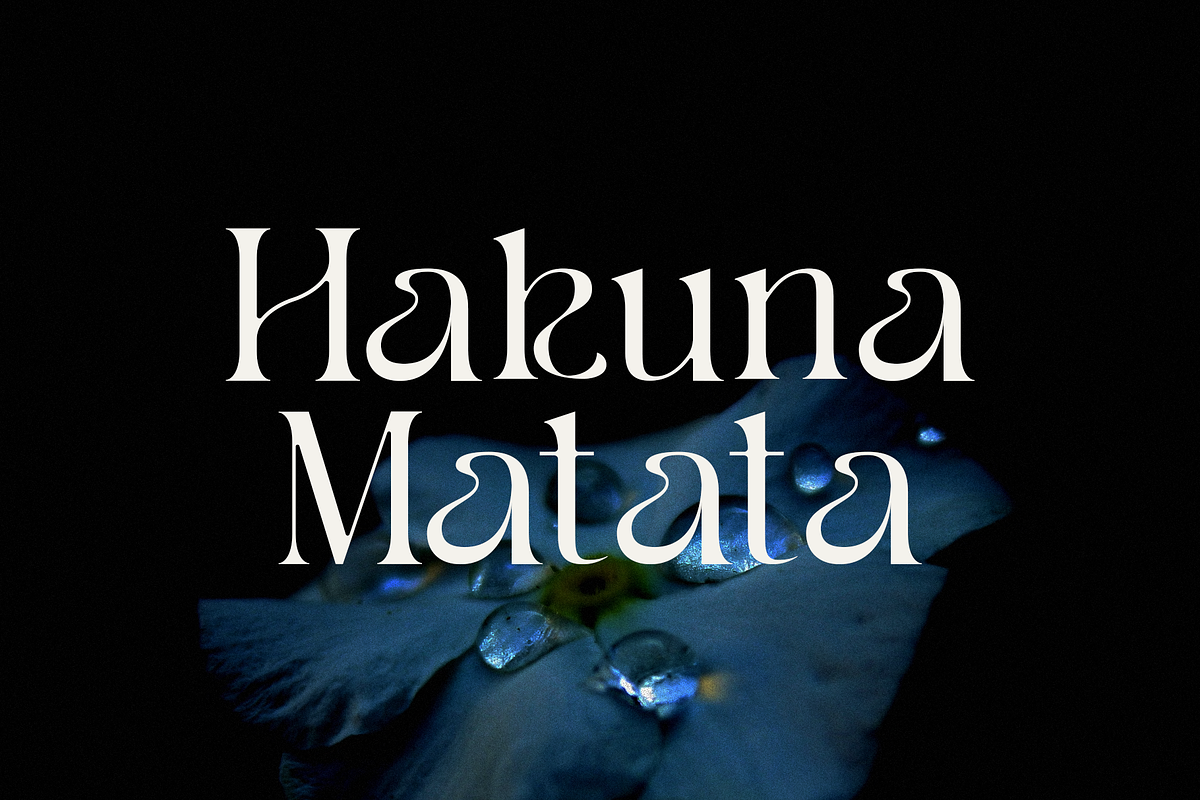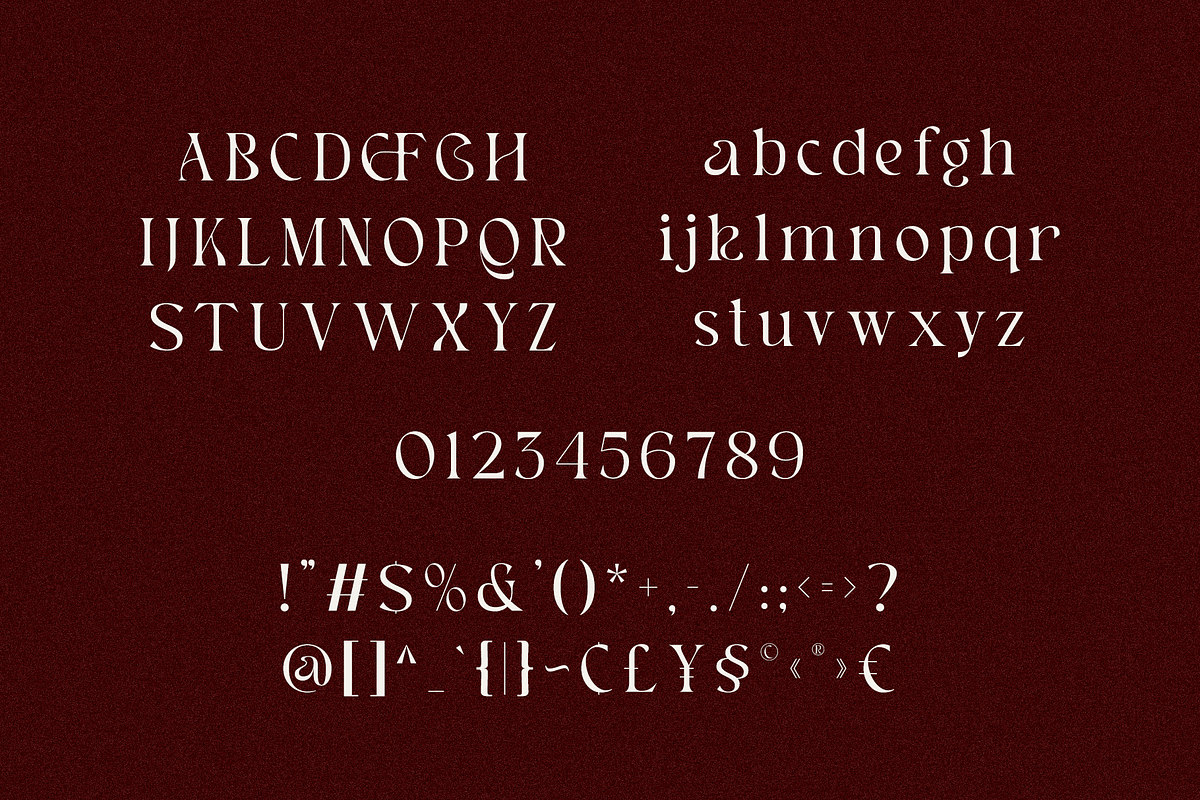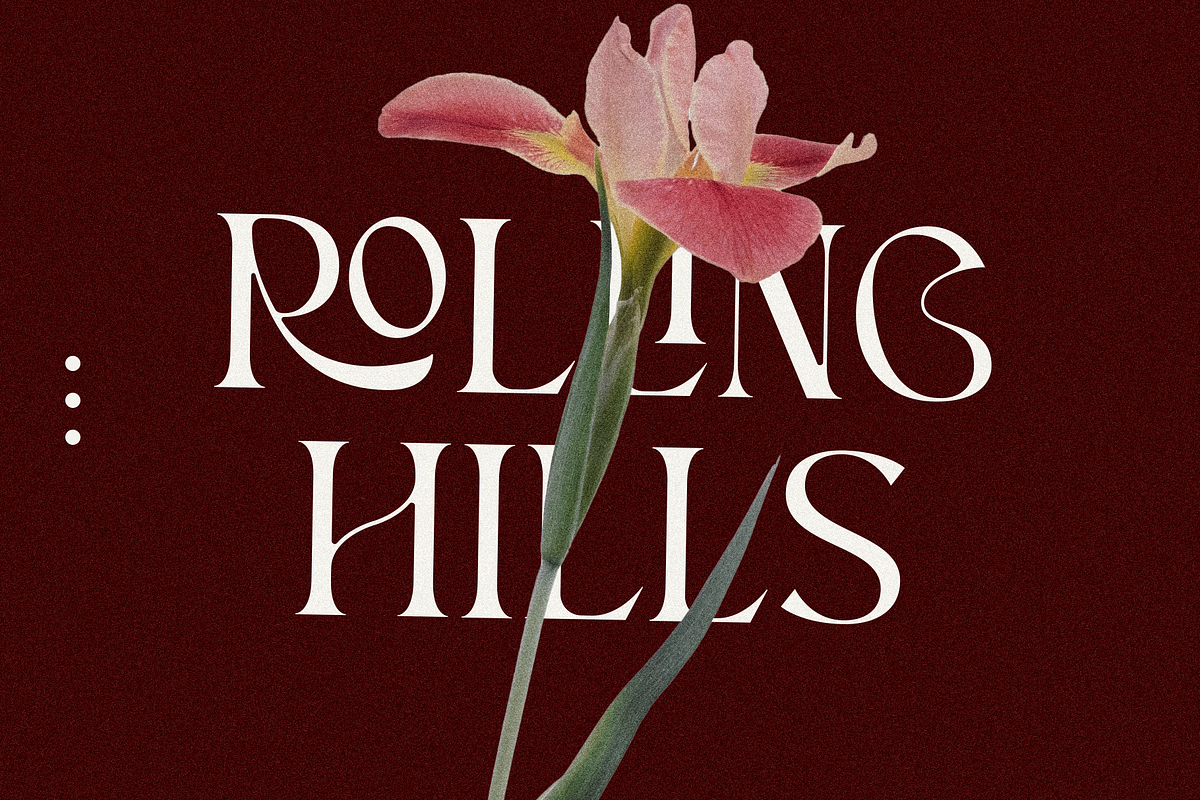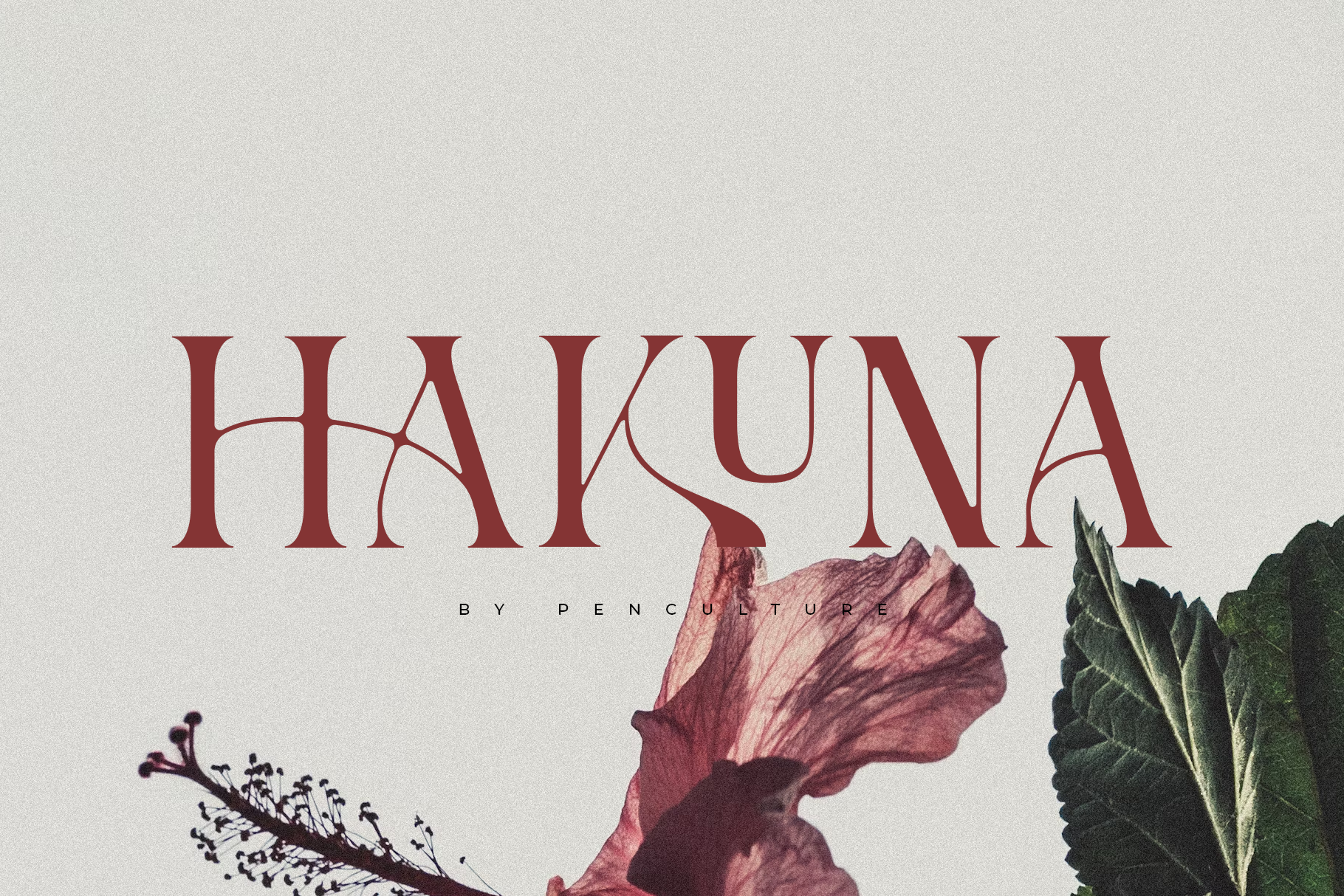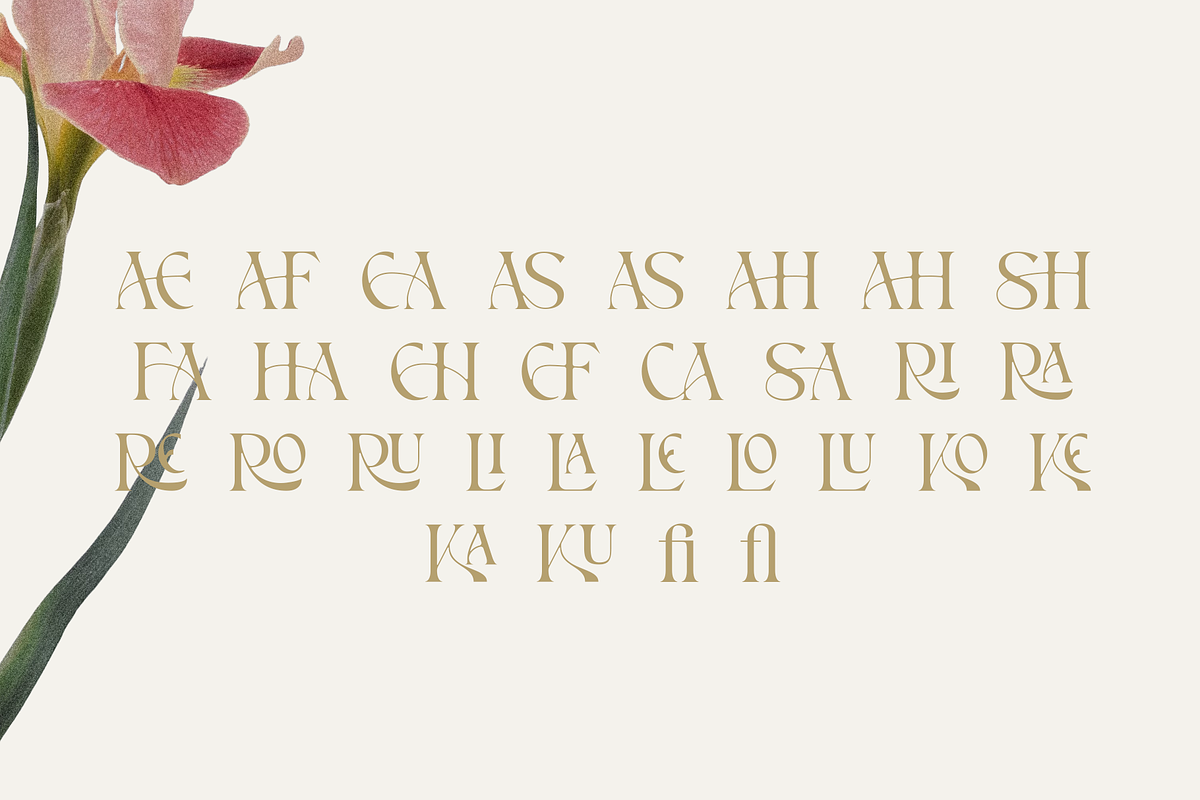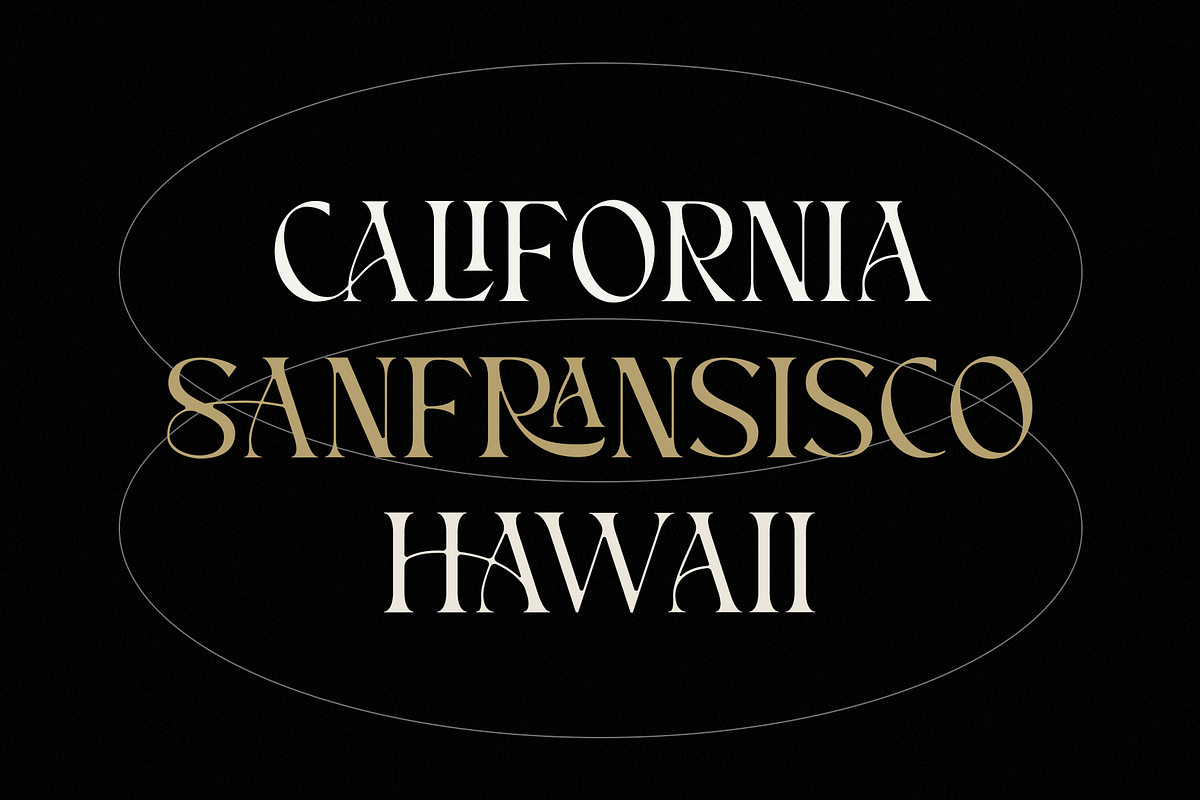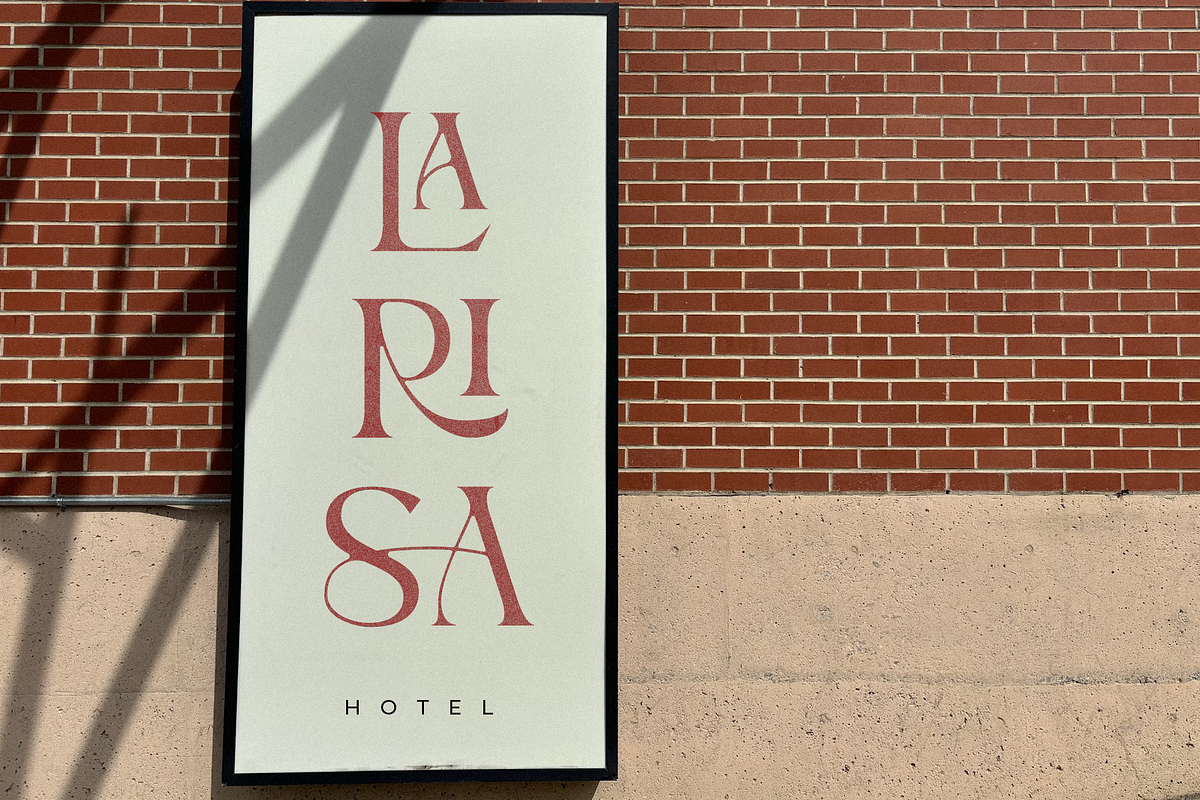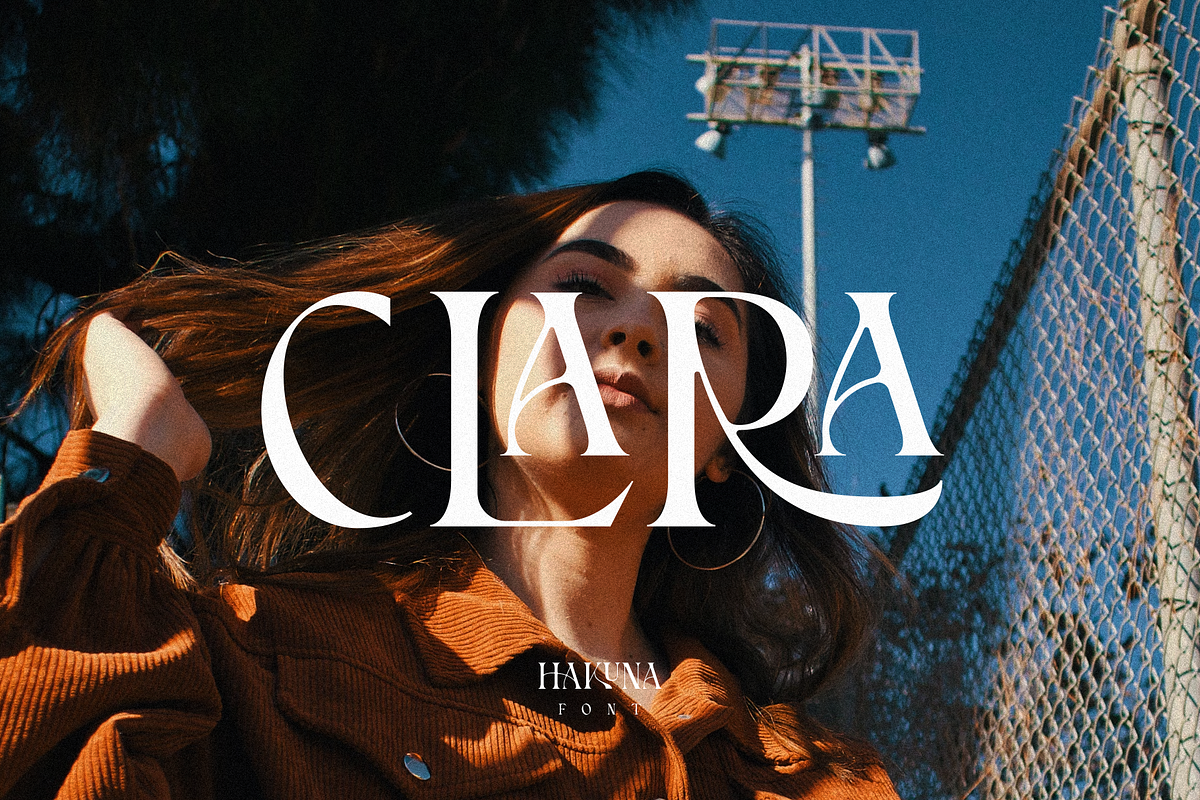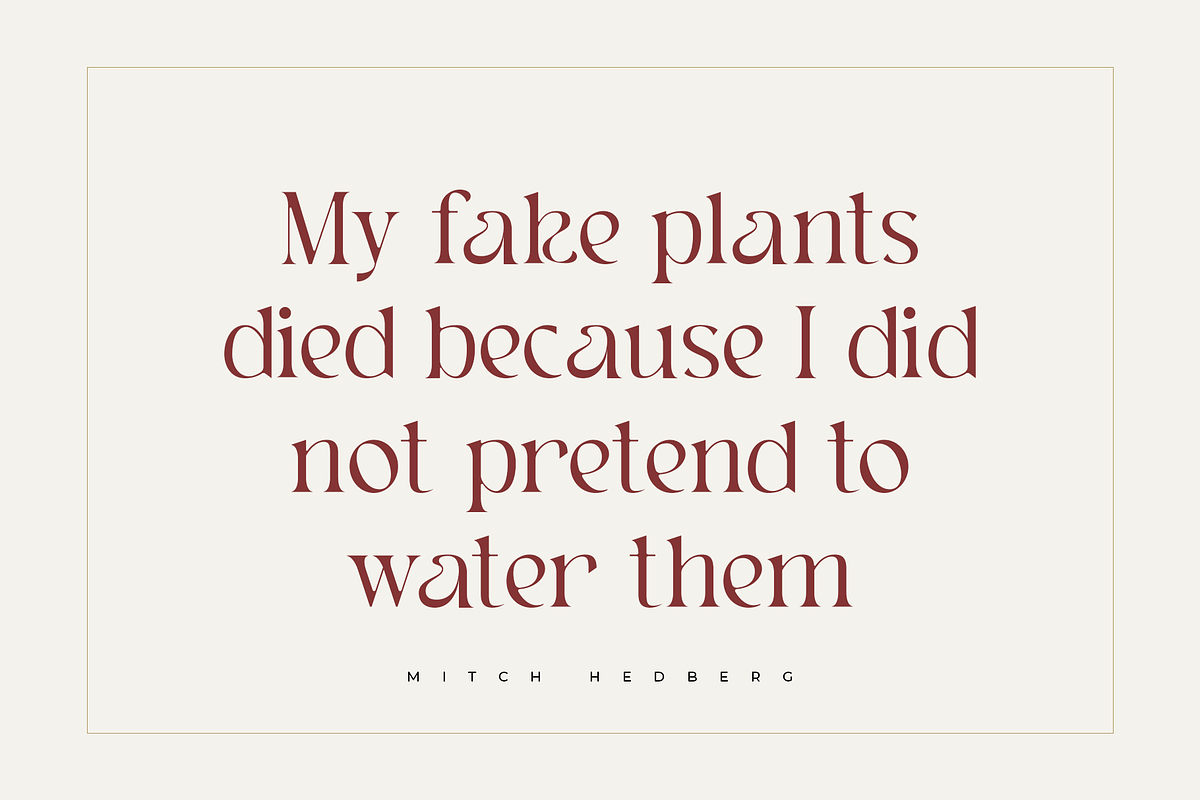
Hakuna – Elegant Serif Font
Hakuna is a refined modern serif font that exudes elegance and sophistication. Designed with a focus on graceful, dominant ligatures, Hakuna brings a luxurious touch to any project.
Complemented by a set of stylish alternates, this font offers versatility and creative freedom for designers. Perfect for high-end branding, editorial designs, logos, wedding invitations, and more, Hakuna effortlessly combines timeless beauty with a modern aesthetic to elevate your typography.